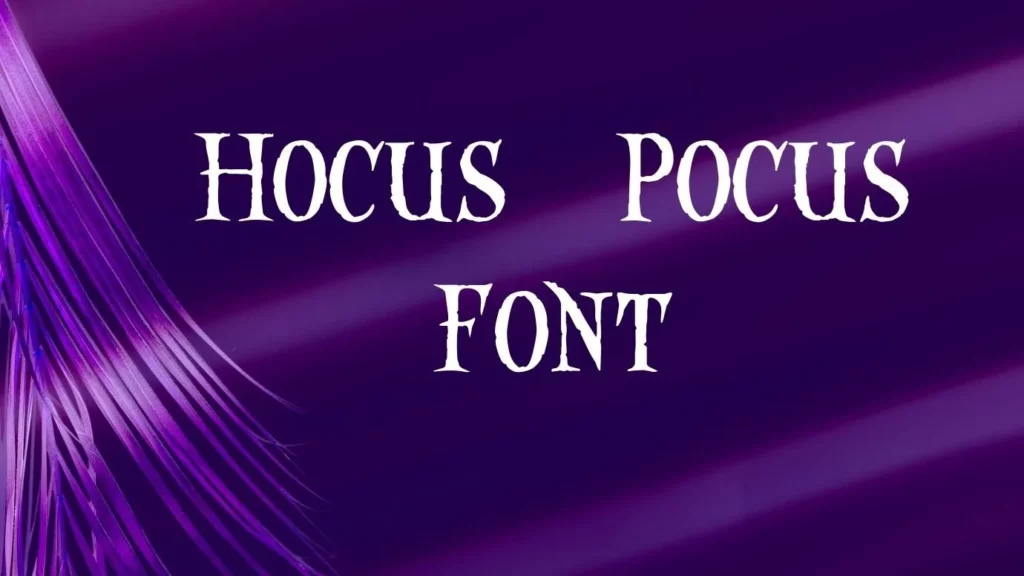
Not only that it was also used in the American movie Hocus Pocus and got great fame among the audience. This typeface got the great attention of the audience
Today we are going to talk about the display movie typeface Hocus Pocus Font that comes with amazing styles and horror appearance. It is a logo-based font that is used in many movie logos and posters. We all are well familiar with the famous Harry Potter novel series that got a great name among children as well as adults. It's a sci-fi series whose logo used Hocus Pocus Font. Its bold nature is perfect for movies and posters.
Not only that it was also used in the American movie Hocus Pocus and got great fame among the audience. This typeface got the great attention of the audience and designers that they used in many other projects.
Hocus Pocus texture was designed by famous designer David Occhino in 2008. He created this fancy font in an amazing regular style that got the attention of everyone.
Therefore, this typeface belongs to a display family font that has stylish glances and elegant characters. It comes with uppercase letters, lowercase letters, some symbols, numbers, and punctuation. It has copy and pastes ability that makes it more vulnerable.
You can find many similar fonts of this typeface but the most similar font is fairy tale font.
This Disney font has special characters and appearance that make it special. Its elegant and eye-catchy style makes it more appealing and amazing.
Hocus Pocus font was designed by famous designer David Occhino in 2008. He created this fancy font in an amazing regular style that got the attention of everyone.